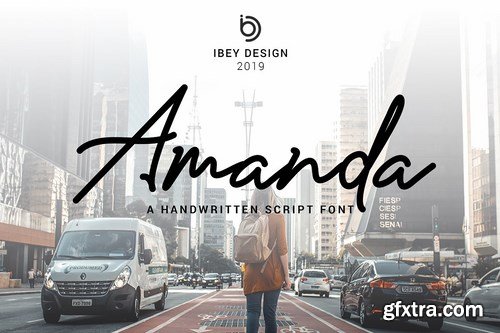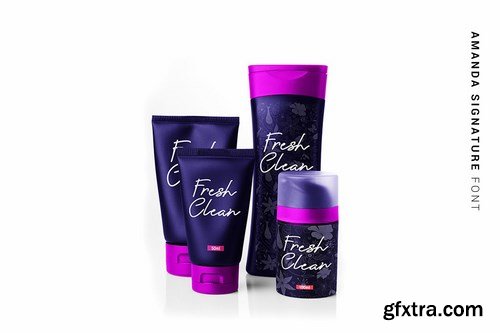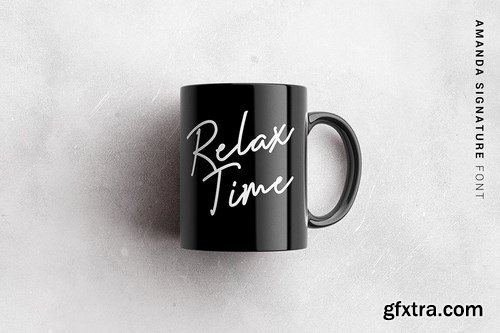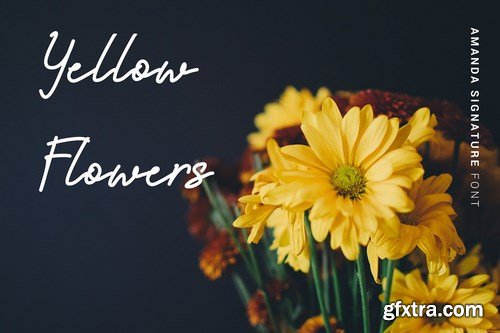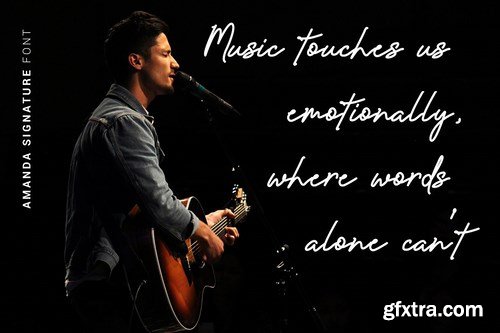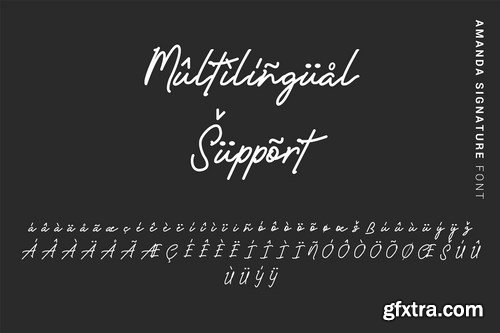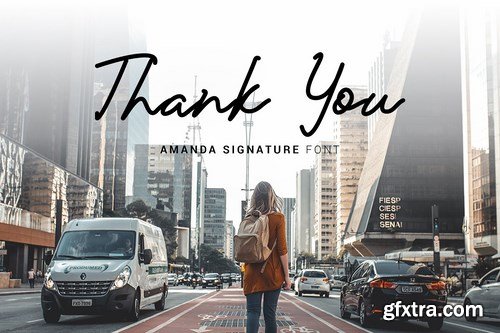
Introducing: Amanda! A monoline font with single line style. Amanda is perfect for crafting, photography, watermark, social media posts, advertisements, logos & branding, invitation, product designs, label, stationery, product packaging, special events etc.